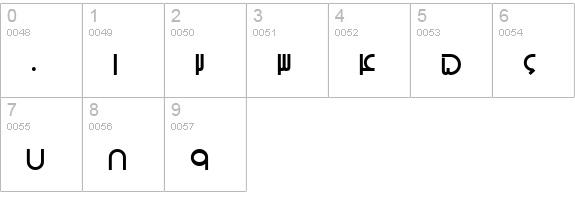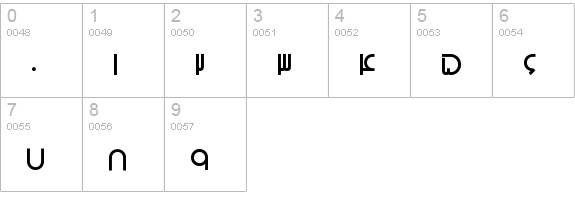
B Arshia Font Details
B Arshia font is a modern and stylish typeface that exudes elegance and sophistication. With its sleek lines and contemporary design, this font is perfect for adding a touch of class to any project. Whether you're designing invitations, branding materials, or website headers, B Arshia font will make your text stand out and leave a lasting impression. Best of all, B Arshia font is available for free download at FontsMarket.com. Now you can elevate your design projects without breaking the bank. Don't miss out on this opportunity to enhance your creations with the stunning B Arshia font today!